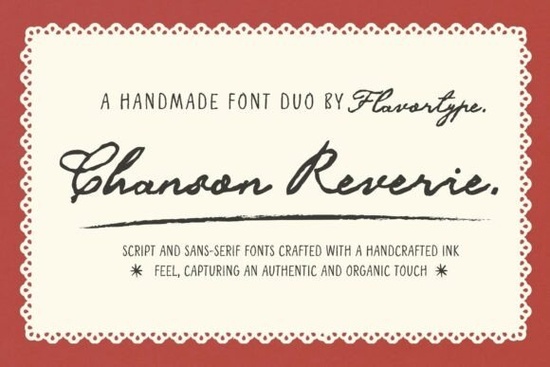
If you are looking for a handmade font duo that feels genuinely personal and a little bit imperfect, Chanson Reverie Font might be exactly what your next project needs. It combines an expressive handwritten script with a hand-drawn sans serif, creating a warm, nostalgic look that instantly makes any design feel more heartfelt. Whether you are working on cozy branding or a set of personalized greeting cards, this duo brings a natural, human touch that perfectly polished fonts sometimes lack.
What makes this font duo special?
Unlike many highly polished typefaces, Chanson Reverie embraces imperfection. The slightly uneven lines and organic shapes are intentional, giving it the charm of something written by hand with a loose, relaxed pen. It was inspired by old postcards, handwritten notes, and paper scraps everyday little moments that feel authentic and real.
The duo works beautifully for designs that need a soft, playful personality with a touch of nostalgia. The script flows naturally with loose curves, while the sans serif keeps the same handcrafted feel without looking too rigid. Together, they create a balanced system that is perfect for projects where you want to add a personal and heartfelt touch.
Who is this font duo best suited for?
This font is a great fit for several types of creators:
- Wedding and event stationery designers: Perfect for save-the-dates, invitations, and thank-you cards. The romantic, nostalgic feel fits beautifully with floral or rustic themes.
- Small business owners: Ideal for cozy branding, whether you run a boutique bakery, a children's clothing shop, or a home decor store. It adds an approachable, handmade feel to your packaging and labels.
- Print-on-demand sellers: Great for creating t-shirt quotes, mug sayings, and wall art prints. The expressive script stands out on products that aim for a sweet, creative, and effortlessly handmade look.
- Crafters and creative hobbyists: If you are creating scrapbooks, bullet journals, or DIY gifts, this font duo helps you achieve a consistent hand-drawn look without having to write everything out yourself.
How can you use Chanson Reverie in your projects?
Branding & Packaging
Use the script for your main logo and the sans serif for supporting product details, ingredient lists, or taglines. This creates an instant hierarchy that feels coordinated and professional, yet approachable. Pair it with a solid, neutral background to let the lettering shine.
Wedding Stationery & Invitations
For wedding suites, the script works wonderfully for the couple's names and the main invitation text. The sans serif can handle the RSVP details, directions, and accommodation information. The overall effect is romantic and timeless, without being overly formal.
Social Media & Marketing
Create engaging quotes and announcements for Instagram or Pinterest. The natural, personal quality of the handwritten script stops the scroll and adds a human element to your brand's social media presence. Pairing it with a clean layout helps it read well on mobile screens.
Home Decor & Crafts
Consider using it for framed prints, throw pillow sayings, or DIY home decor projects. The nostalgic feel makes it especially fitting for farmhouse-style or vintage-inspired decor. If you are creating a family recipe book or a personalized gift, this typeface adds a lot of warmth.
How does it compare to other hand-drawn fonts?
There are plenty of script fonts out there, but what makes Chanson Reverie stand out is the specific balance between coziness and legibility. The characters are distinct enough to remain readable, even in longer passages, while still keeping that loose, expressive quality.
Compared to a more structured script like Goldray Club Font, Chanson Reverie feels softer and more casual. If you are deciding between this and a bold, thick script like Bromello Font, consider the mood of your project. Bromello might be better for loud, confident headlines, while Chanson Reverie excels at creating an intimate, whispery feel.
For those who like a minimalist, airy look, The Skinny Font is another great option in the script category. However, if you need a complete package (script + sans serif) that works right out of the box, the Chanson Reverie duo saves you the hassle of finding a compatible pairing.
What should you look for when choosing a handmade font?
Investing in a handmade font is a bit different than buying a standard sans serif. Here are a few things to keep in mind:
- Versatility: Does it include multiple weights or styles? A duo like this one gives you more flexibility without needing to buy a separate font.
- OpenType Features: Check for ligatures, swashes, and alternates. These extras allow you to customize the lettering and avoid the "digital repeat" look, making your projects feel even more authentically handwritten.